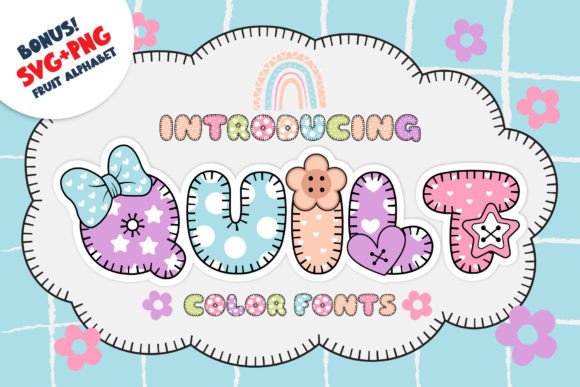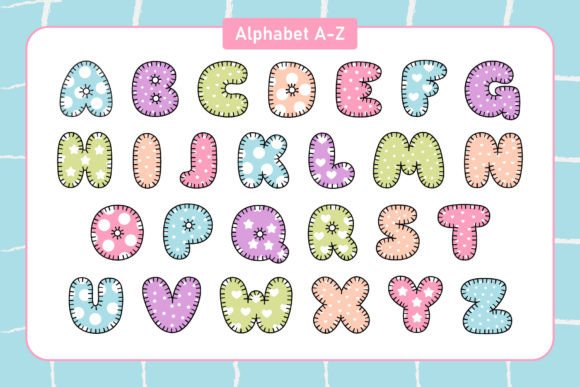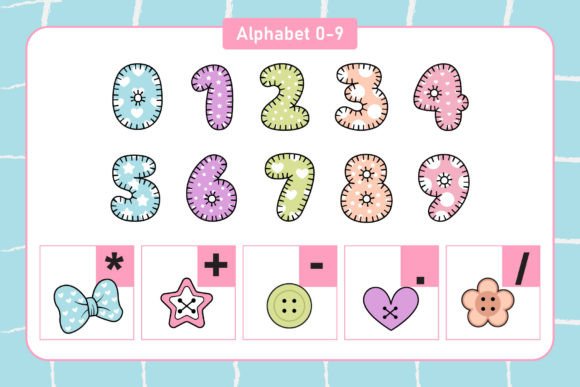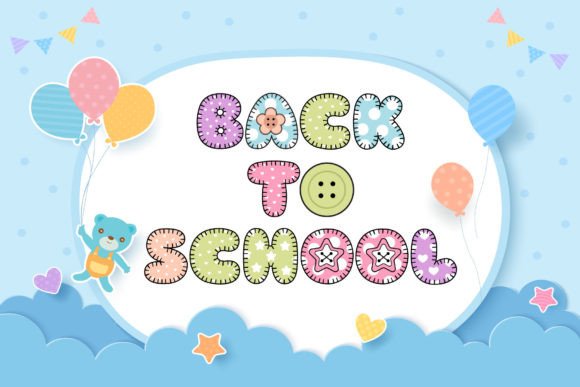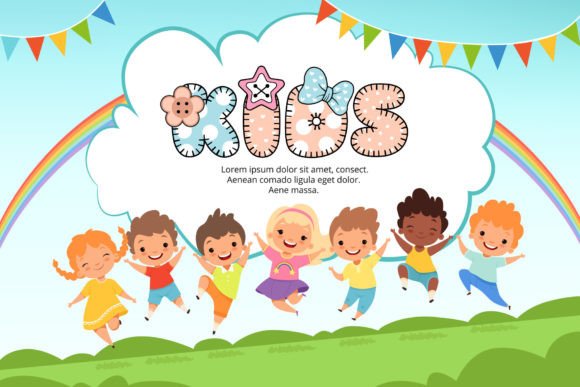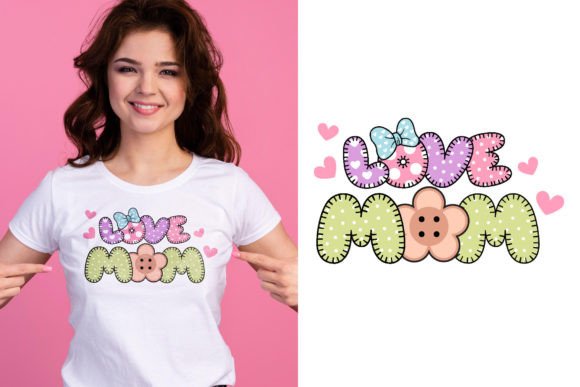
About Quilt Font
Quilt is a delightful and vibrant OpenType-SVG color font that brings a playful and authentic feel to your designs. With its charming and colorful characters, Quilt font is perfect for creating eye-catching and cheerful visuals for a variety of projects.
Whether you’re designing invitations, stationery art, social media posts, greeting cards, or any other creative idea, Quilt font will add a unique and lively touch to your designs. The bright colors and fun elements in the font make it perfect for projects that aim to capture attention and convey a sense of joy.
With Quilt font, you can infuse your designs with a sense of fun and creativity. It’s perfect for projects that require a touch of brightness, such as children’s artwork, event invitations, social media graphics, and more. Let Quilt font be the centerpiece of your creative ideas and watch as it brings them to life with its cute and vibrant personality.